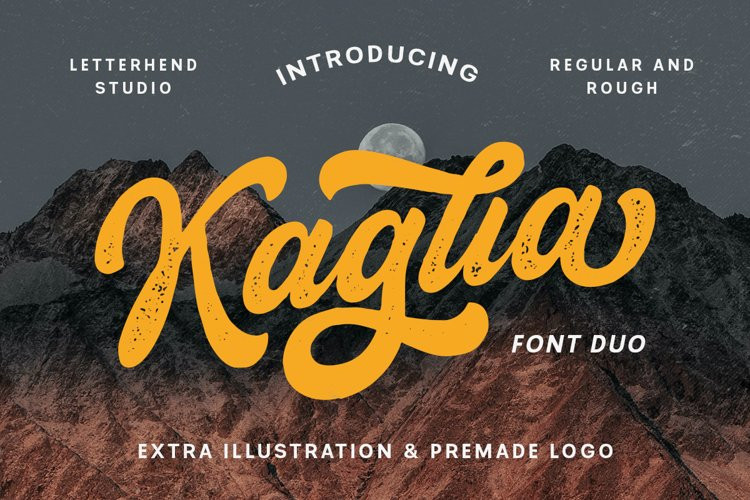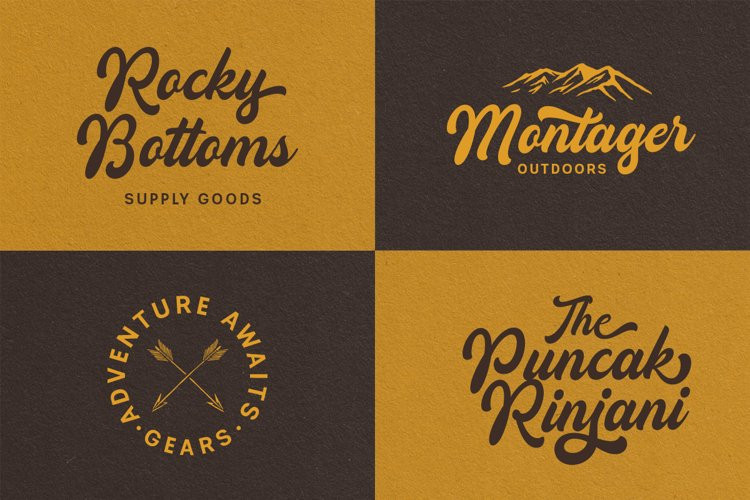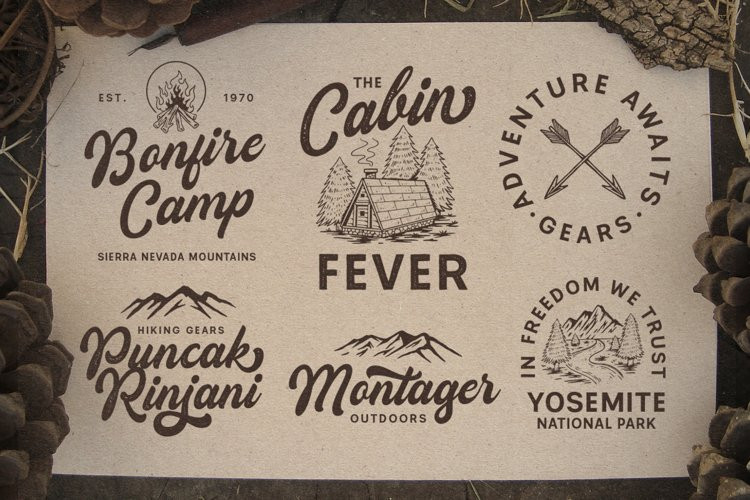
Kaglia Font
Kaglia FontKaglia is a font duo package contain a hand drawn bold script and sans serif which looks great to be paired especially for vintage and adventure theme! It also comes with extra illustration and premade logo! This font duo is purposely made for headline, display or logotype, and signature which need a standout appearing. This font is also suitable to be applied especially in logo, and the other various formal forms such as invitations, labels, logos, magazines, books, greeting / wedding cards, packaging, fashion, make up, stationery, novels, labels or any type of advertising purpose.